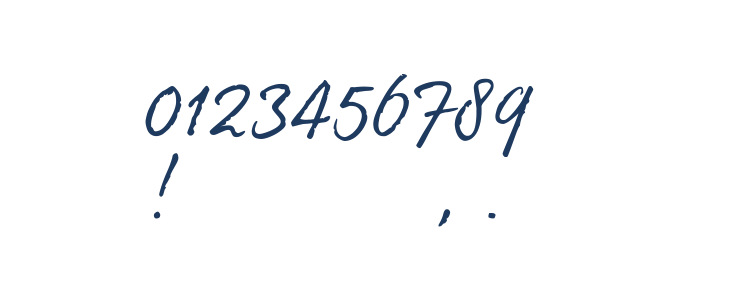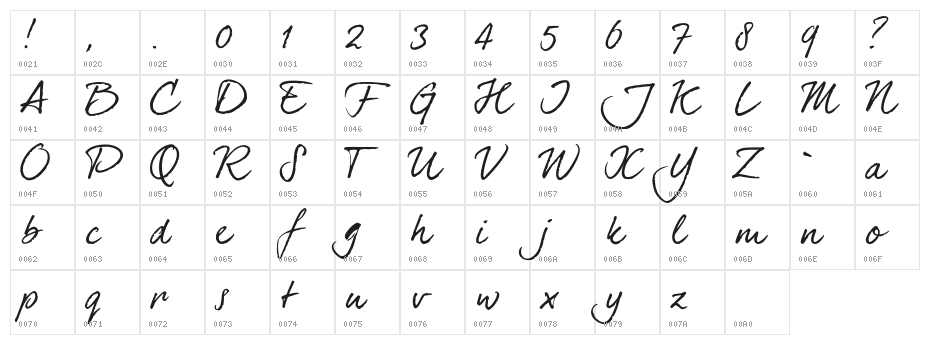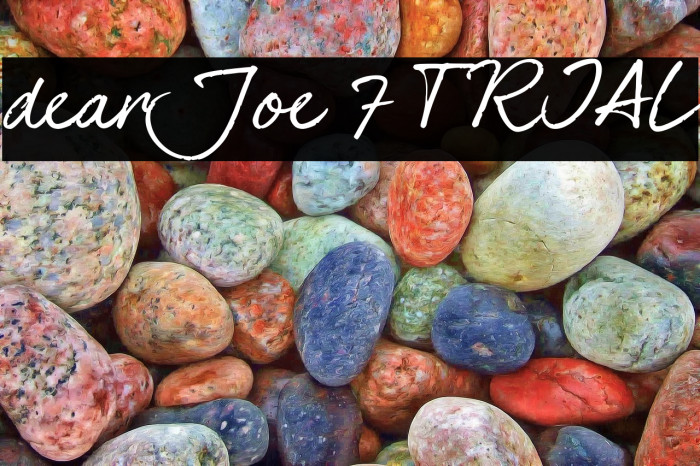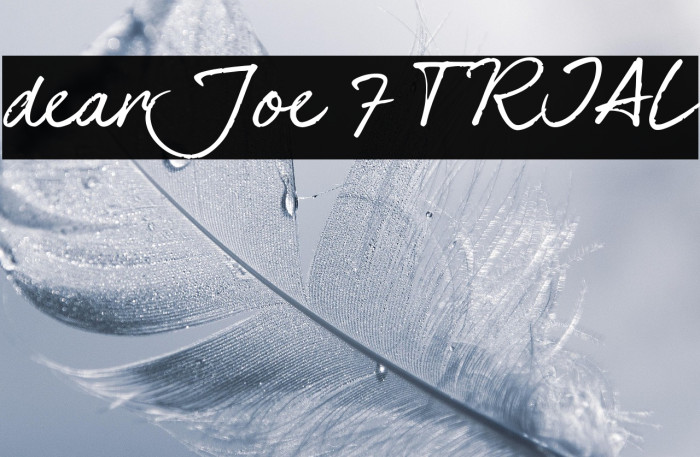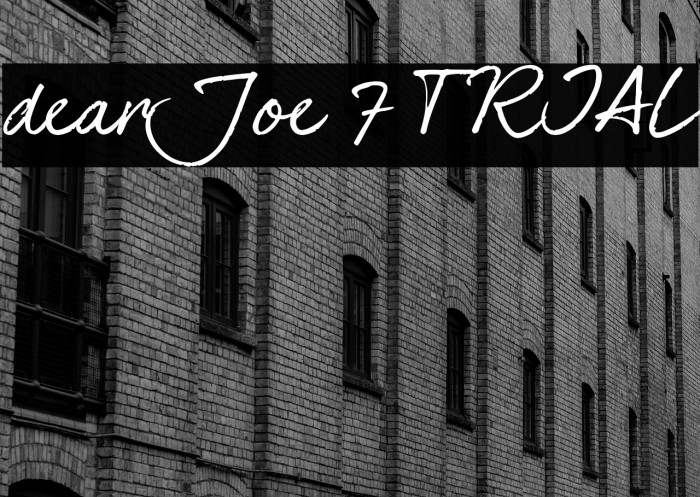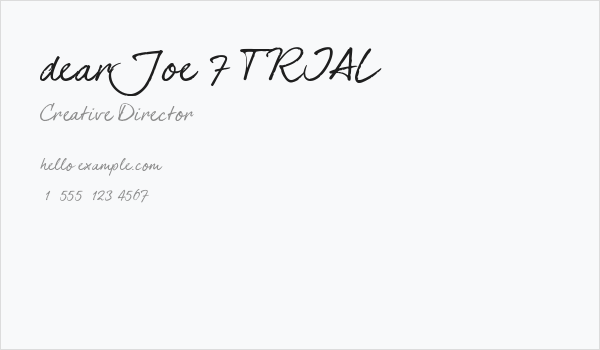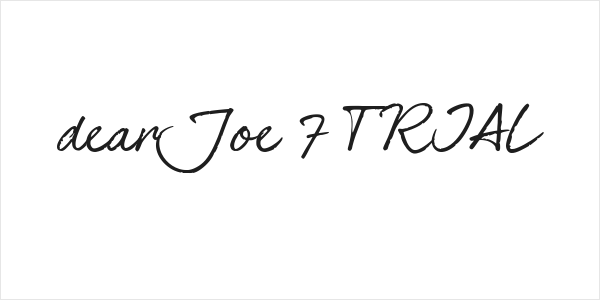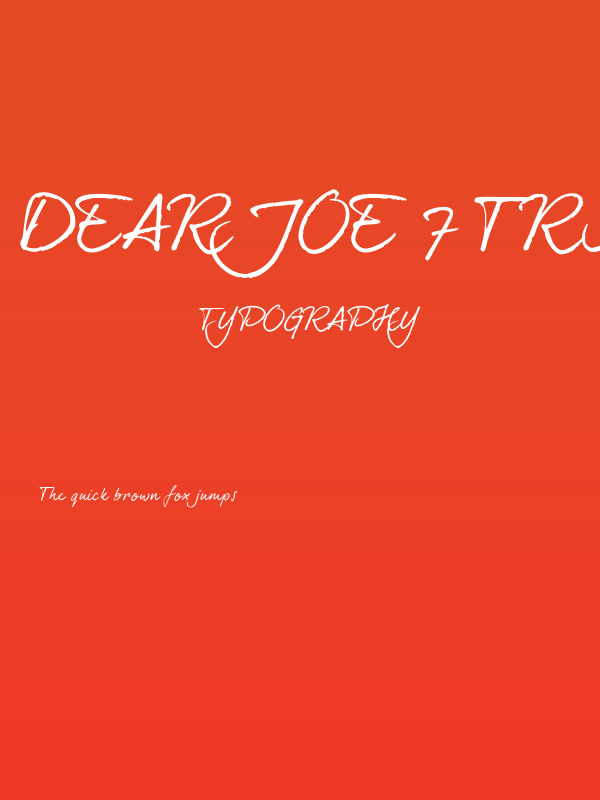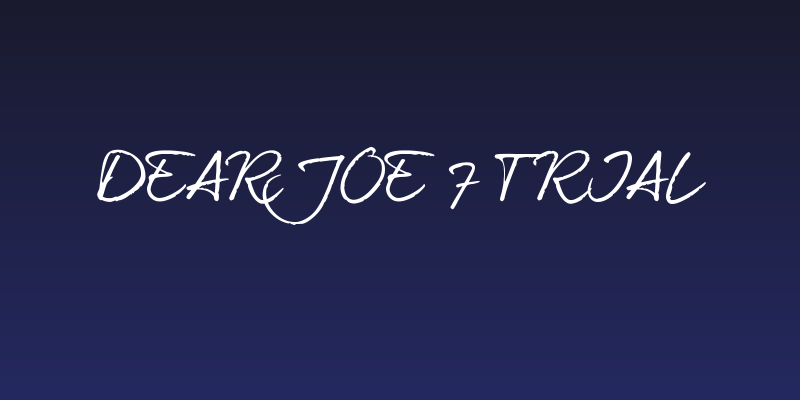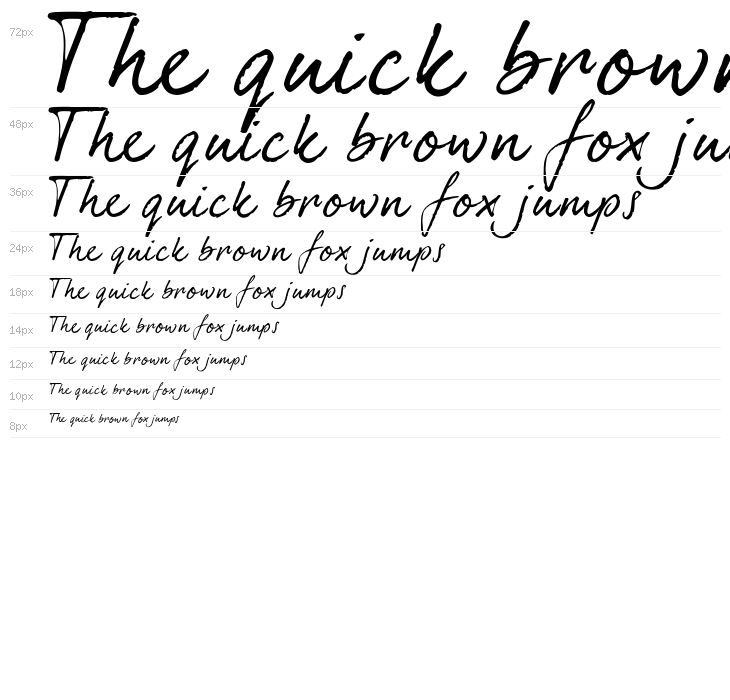
dearJoe 7 TRIAL Font
dearJoe 7 TRIAL Description
This font exudes a lively and dynamic character with its flowing, cursive style. The letters are crafted with a natural, handwritten feel, featuring smooth curves and elegant loops. The uppercase letters maintain a consistent height, while the lowercase letters vary slightly, adding to the font's organic appearance. The numbers are equally expressive, maintaining the same fluidity and style as the letters. The special characters blend seamlessly with the overall design, ensuring a cohesive look. This font is perfect for projects that require a personal touch or a sense of elegance and sophistication.
| Overall Style | Elegant, Handwritten |
| Proposed Projects | Ideal for wedding invitations, greeting cards, personal branding, and elegant packaging designs. |